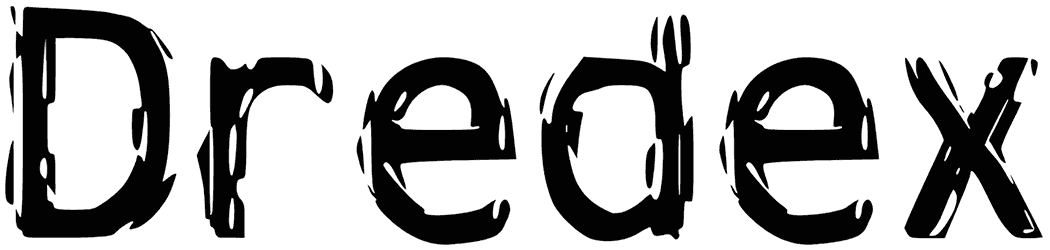
d Dredex Font
You can create an artistic and modern design with a well-chosen item of word design. As an eroded font, d Dredex has a bold and unique hand-drawn letter style. With this glitch font, you can adorn your innovative designs, for instance, illustrations, postcards, game screens, apparel, or the like, and make them attractive.